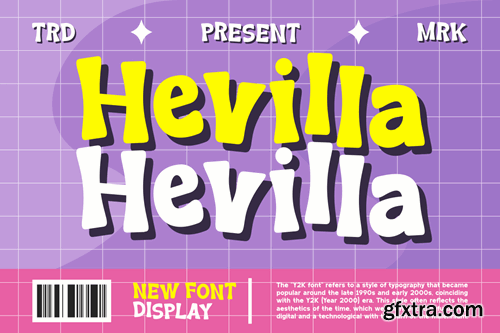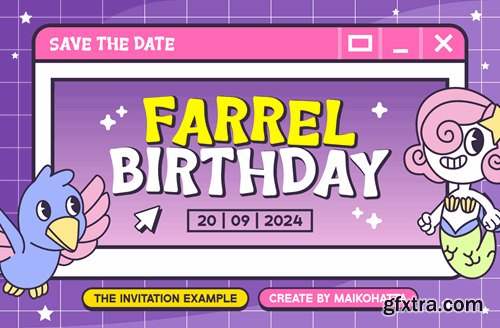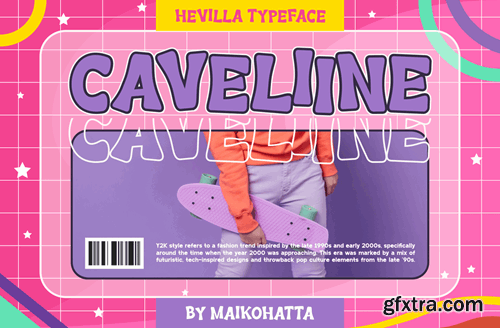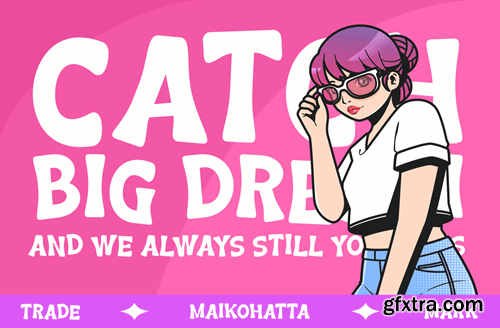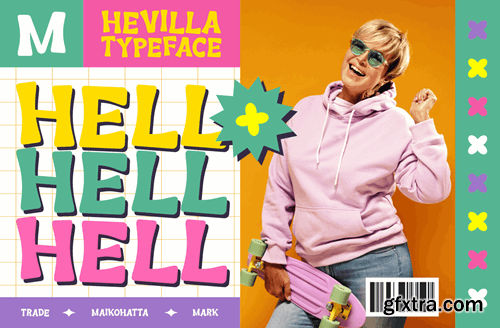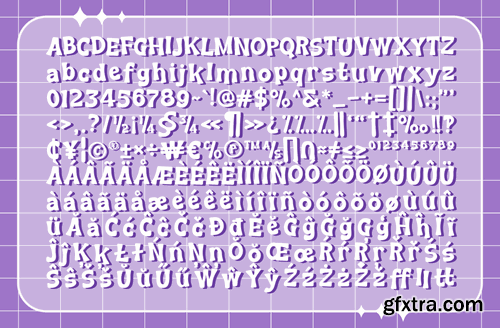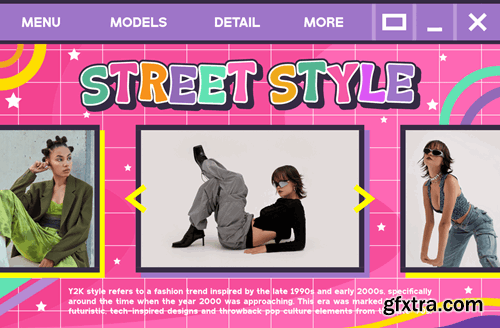
Hevilla - Y2k Display Font
Introducing our new product Hevilla - Y2k Display Font Hevilla is a visual representation of the Y2K (2000) aesthetic featuring futuristic style, technology, and digital elements from the early 2000's. This font incorporates elements such as old computer displays, pixels, neon, and geometric shapes that are reminiscent of the technological developments of the time. availlable